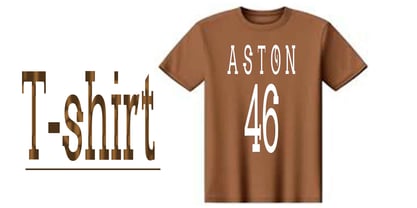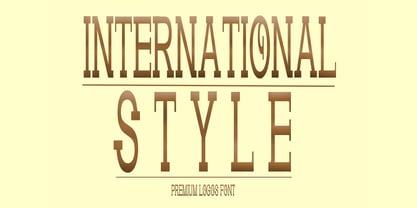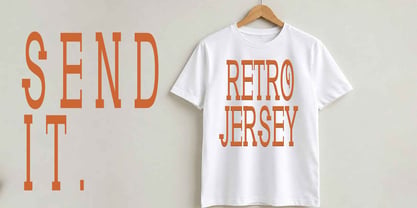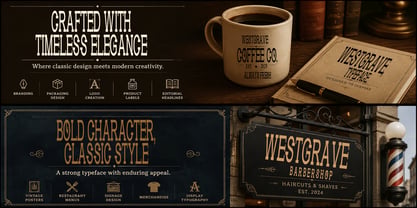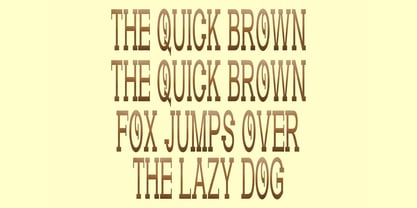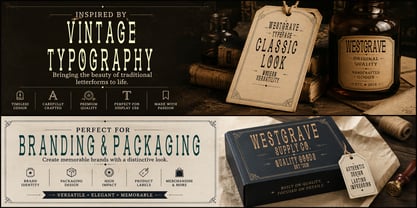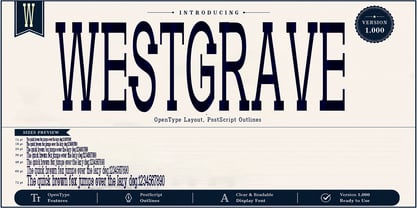
Westgrave
The Westgrave Font Family was designed by Teuku Saifullah and published by Shape Studio. Westgrave contains 6 styles and family package options. More about this family
Westgrave is a serif display type family inspired by 20th century European sign painting. It blends several calligraphic concepts to create a unique, dynamic and emphatic typeface. Available in 5 weights and 6 styles (upright and oblique), Westgrave is well equipped to provide clear solutions for a variety of situations and settings such as editorials and headlines. With 466 glyphs per font, Westgrave supports 94 different languages. Opentype features include inferiors, superiors, fractions, tabular figures, and ligatures.